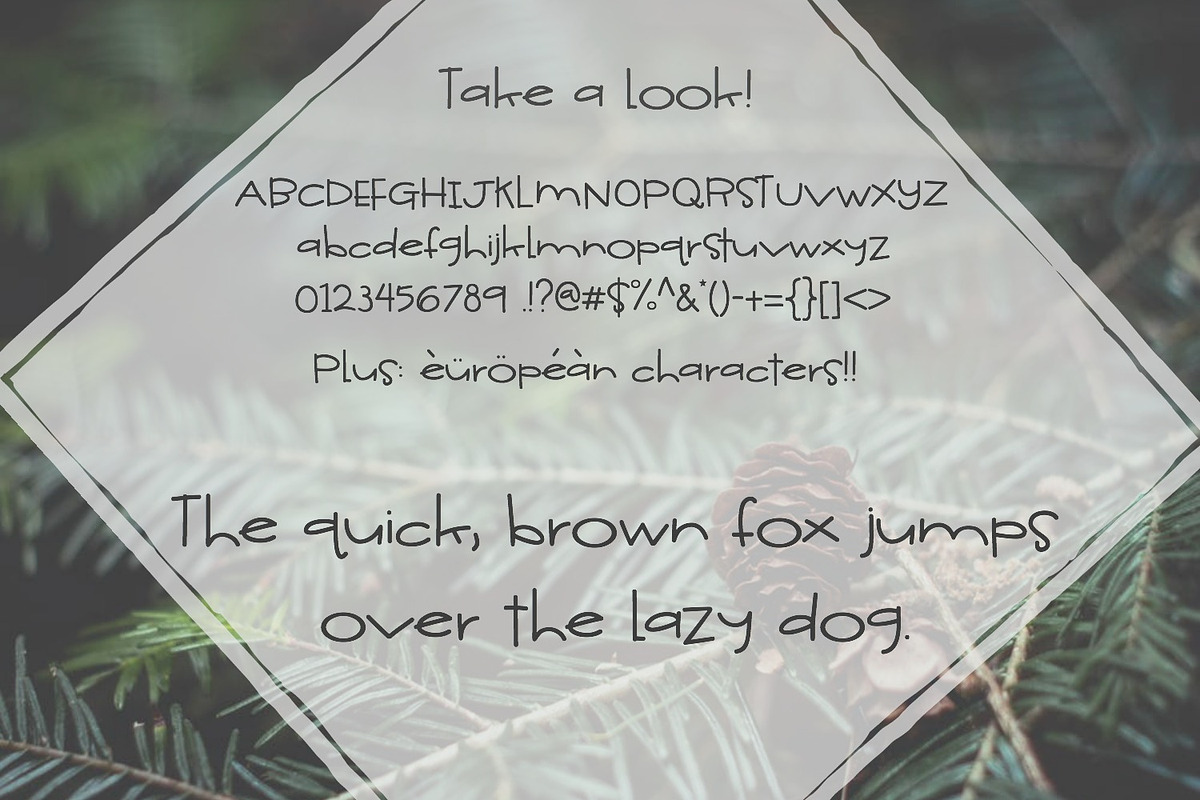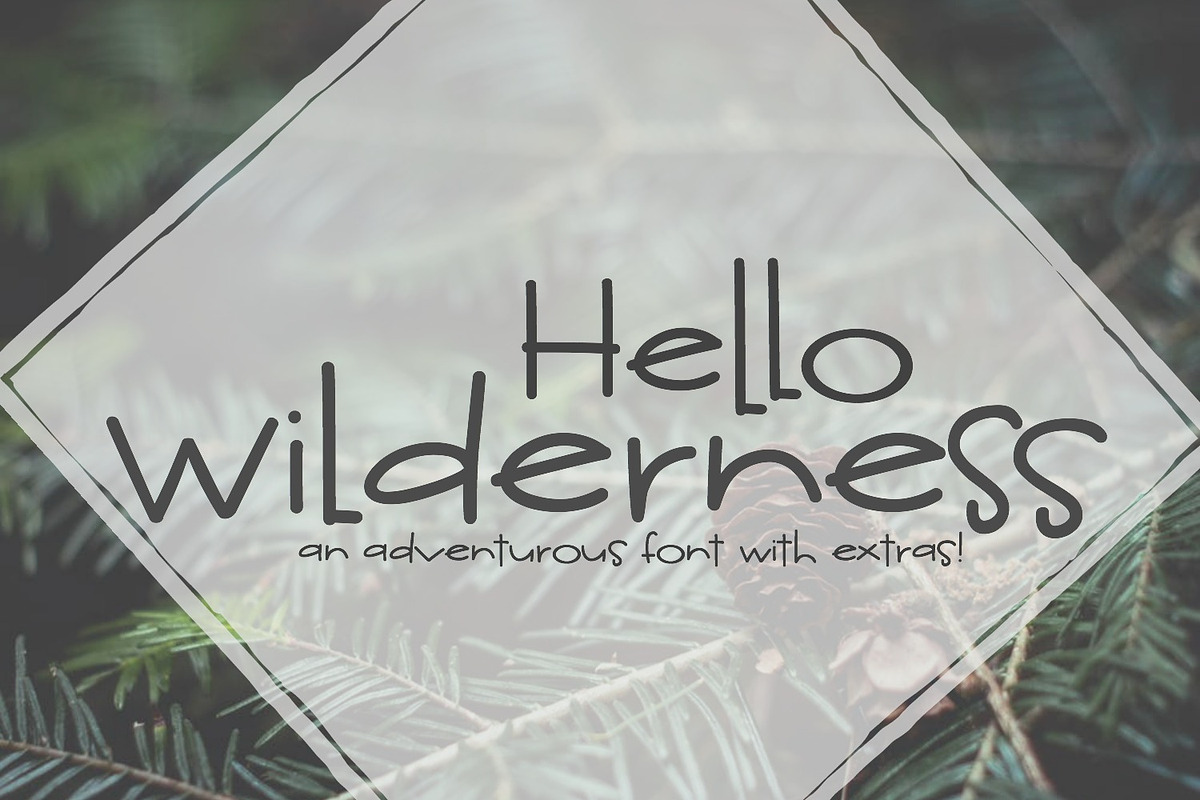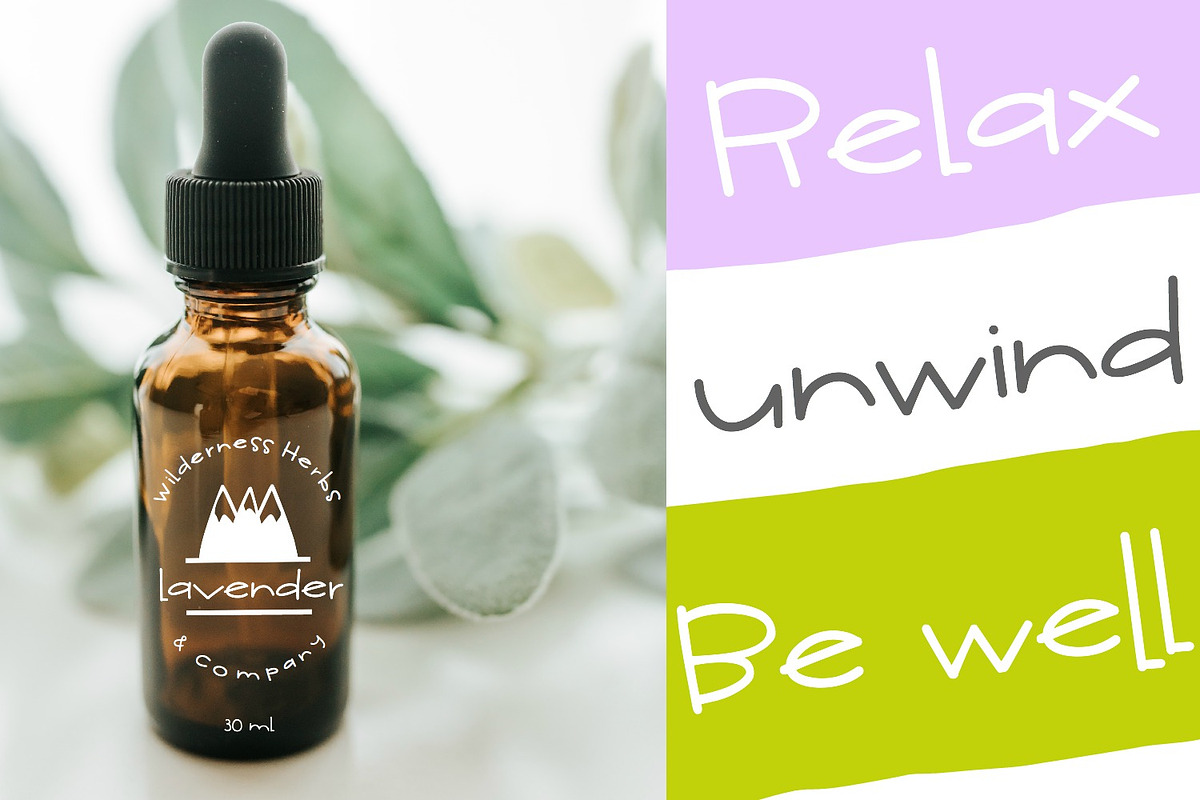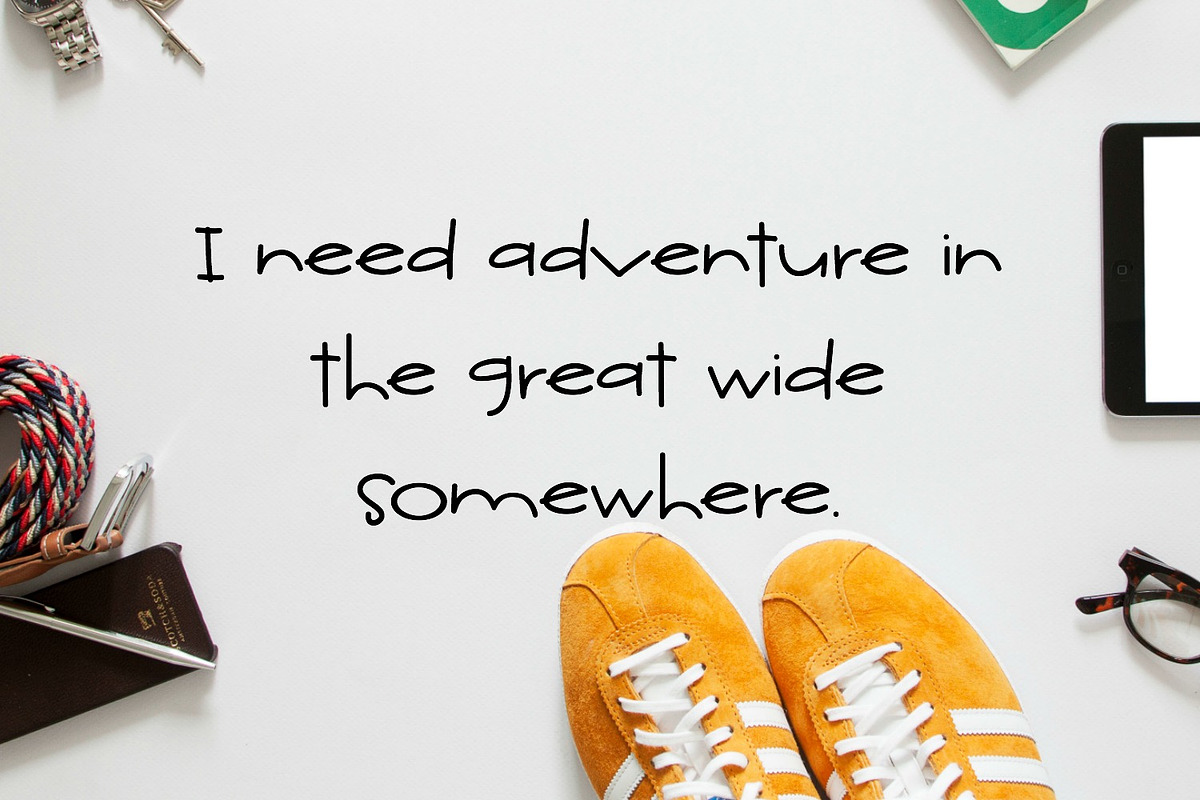
NEW! Hello Wilderness Sans Font
Meet Hello Wilderness Sans! This font is jam packed with handwritten charm and mountain themed extras! This font is perfect for designs that call for a youthful touch!
NEW! Hello Wilderness Sans Font by Sabrina Schleiger Design fits naturally into Branding, posters, packaging, typography.